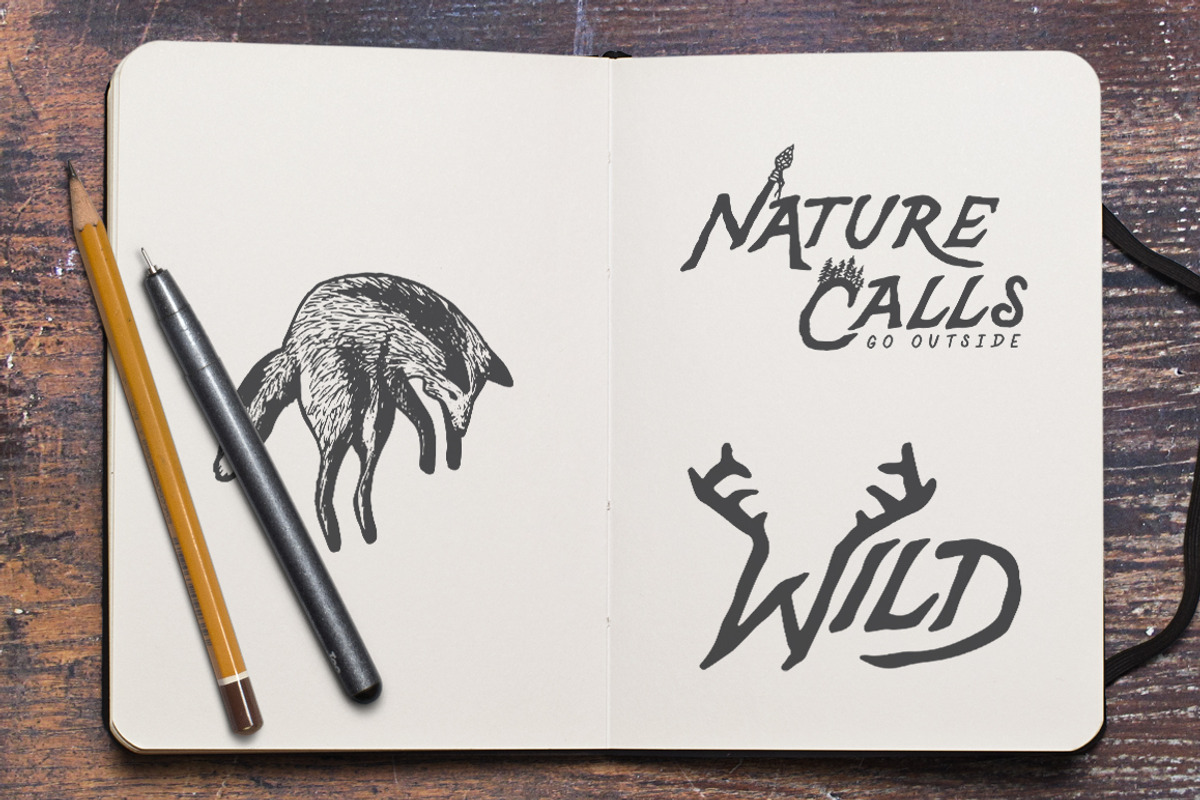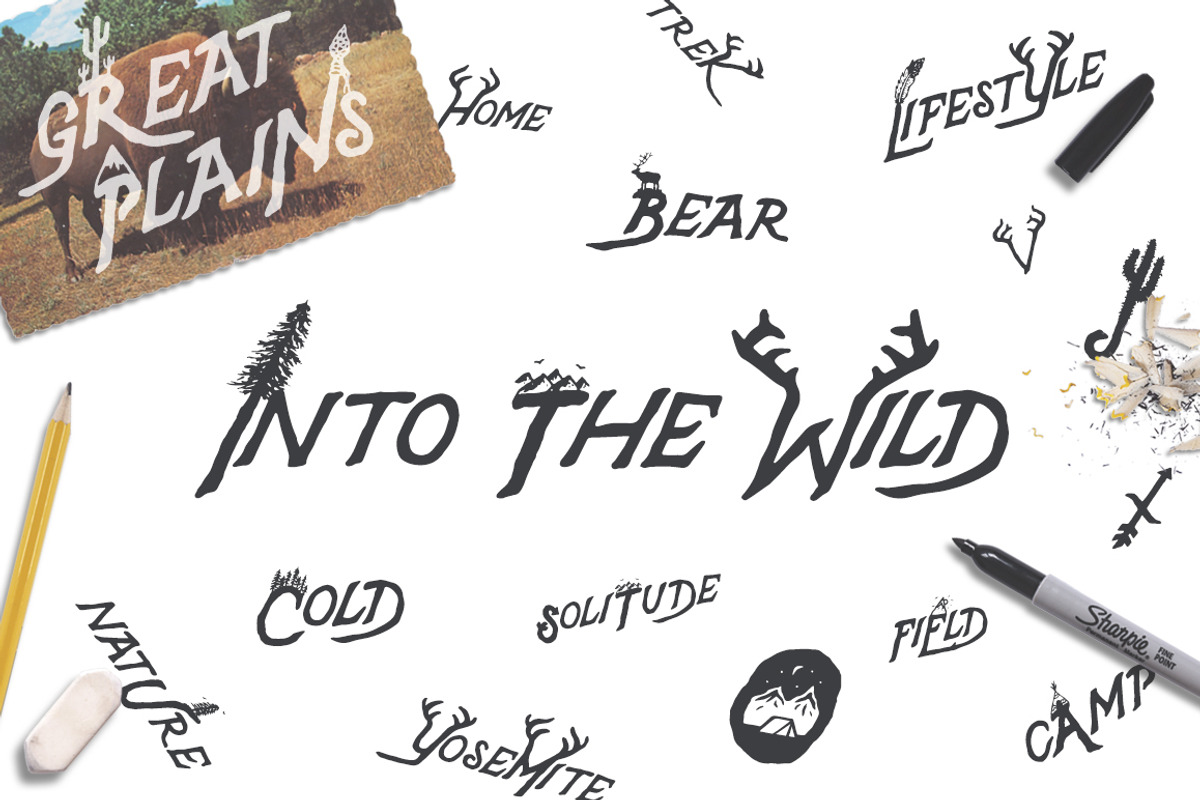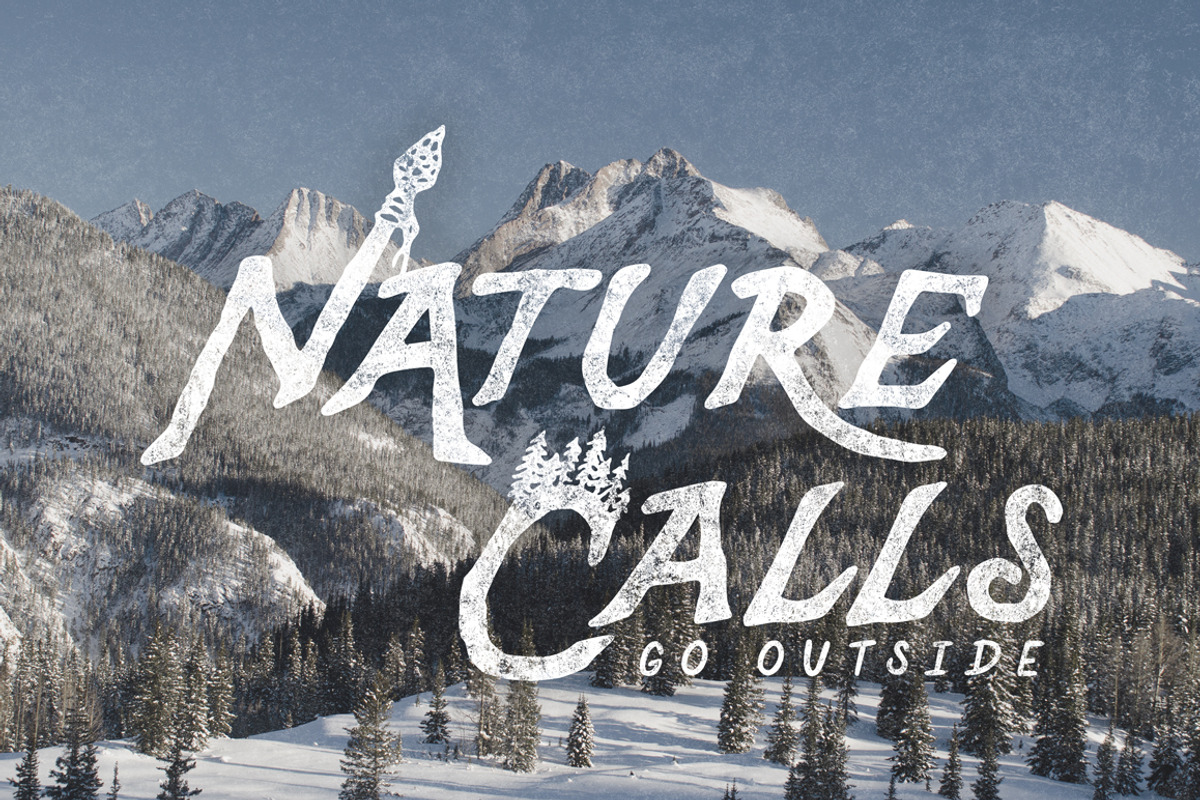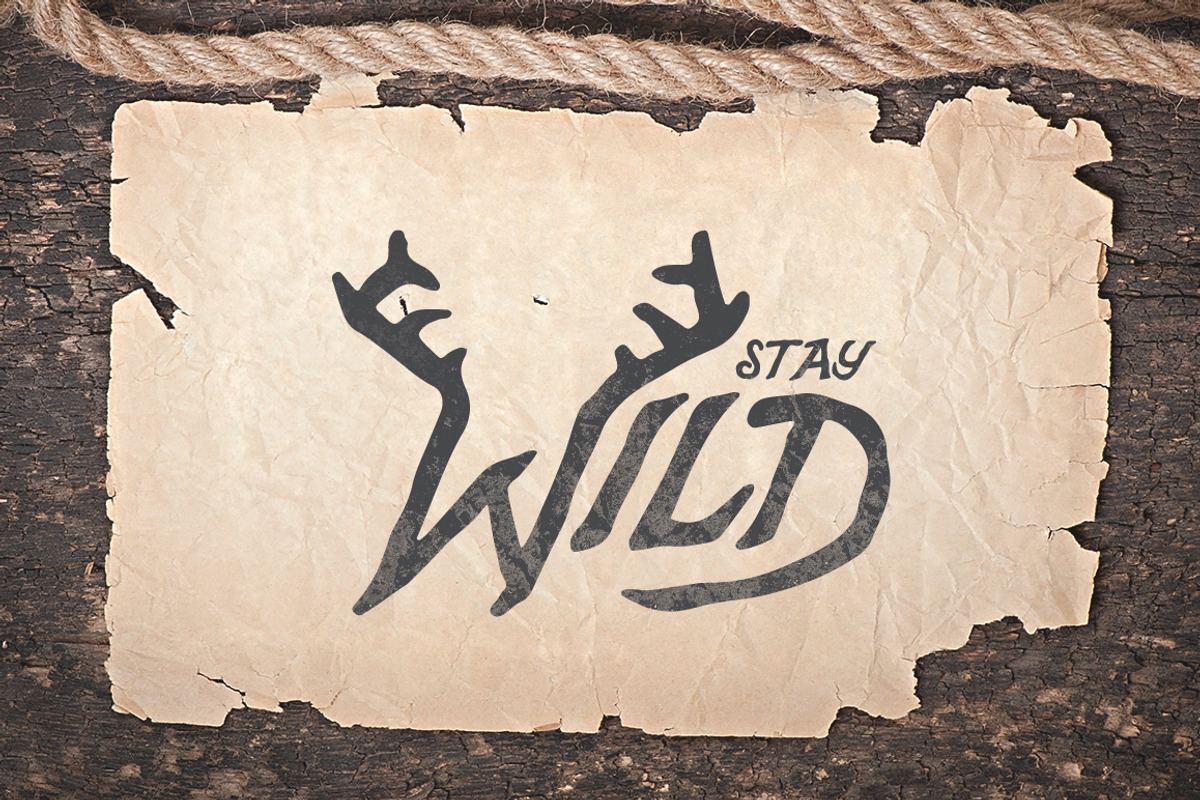
Pilgrim Font Collection (3 Fonts)
Pilgrim Font Collection (3 Fonts) by Design Surplus is a font selected for branding, posters, packaging, typography.
- Pilgrim Regular is an uppercase font with 2 alternatives for each letter.
- Pilgrim Antlers is a bonus font with a series of unique, illustrated uppercase letters (antlers, tress, deer, tents, mountains) Pair the rus